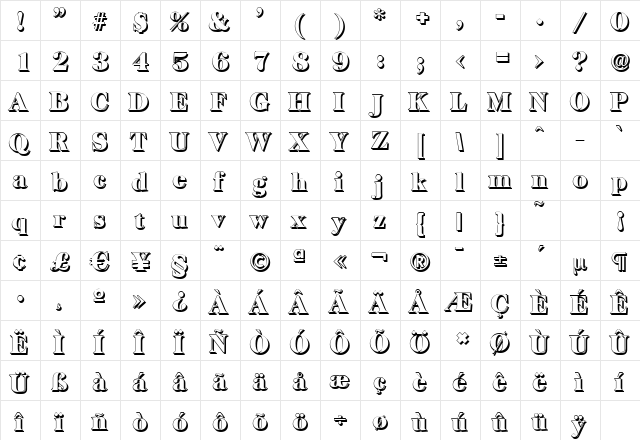
BaskervilleShadow-Black Regular
Design Context for BaskervilleShadow-Black Typeface
BaskervilleShadow-Black brings ornamental detail and strong personality to headlines and identities, where visual impact matters more than quiet functionality.
Font Pairing: Pair with a clean neutral sans-serif for body copy to let BaskervilleShadow-Black's character lead without overwhelming the composition.
Pro Tip: Use BaskervilleShadow-Black exclusively at display sizes — it was designed to be seen, not read at length. Let a neutral companion handle body copy.